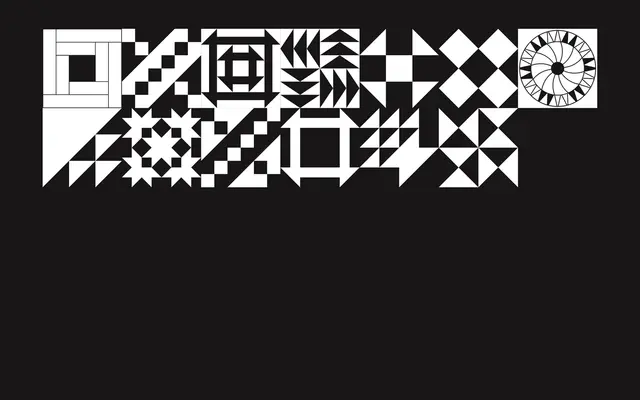
VTC Harriet
A symbol typeface in which every character maps to a quilt block pattern drawn from the Underground Railroad Quilt Code, named after Harriet Tubman.
Each letter and numeral resolves to a single quilt block, regular or inverted, allowing designers to compose repeating patterns by typing. Stylistic sets extend the system into pre-built 2x2 through 5x5 arrangements, and alternating ligature pairs produce checkerboard rhythms automatically. The typeface is grounded in the oral tradition of the Underground Railroad Quilt Code, in which specific quilt patterns communicated directions and instructions to people escaping enslavement.
VTC Harriet is a symbol and pattern typeface in which each character resolves to a quilt block motif, functioning as a modular design system rather than a readable text face. It sits firmly in the display/ornamental category.